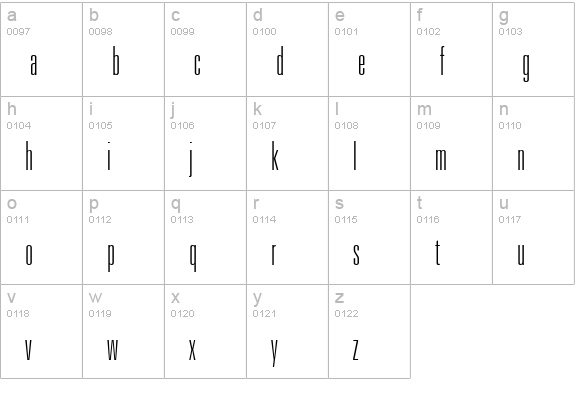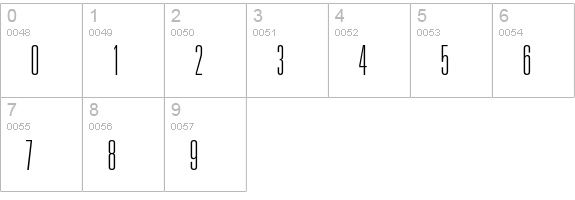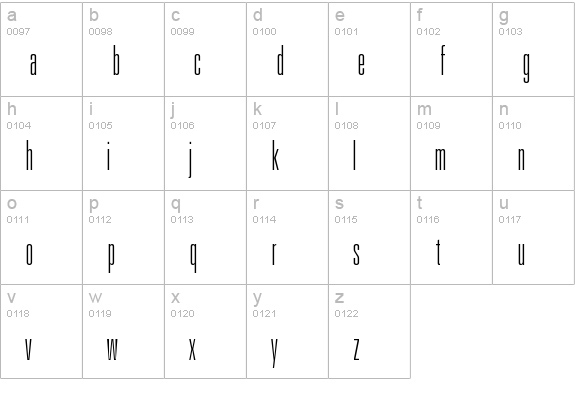
Nova Light Ultra SSi Thin Ultra Condensed Font Details
Nova Light Ultra SSi Thin Ultra Condensed is a refined, elegant, condensed-width variant in the Nova typeface family \xE2\x80\x94 well suited to elegant body text, refined sub-headings, and luxury branding.
The Nova Light Ultra SSi Thin Ultra Condensed font is a sleek and modern typeface that exudes elegance and sophistication. Its ultra-thin design makes it perfect for creating a minimalist and contemporary look in your projects. This font's clean lines and sharp angles give it a unique and stylish appeal that is sure to make a statement. What's even better is that this font is available for free download at FontsMarket.com. You can easily add this versatile typeface to your collection without any cost, allowing you to elevate your designs without breaking the bank. Don't miss out on the opportunity to enhance your projects with the Nova Light Ultra SSi Thin Ultra Condensed font - download it now and let your creativity shine!